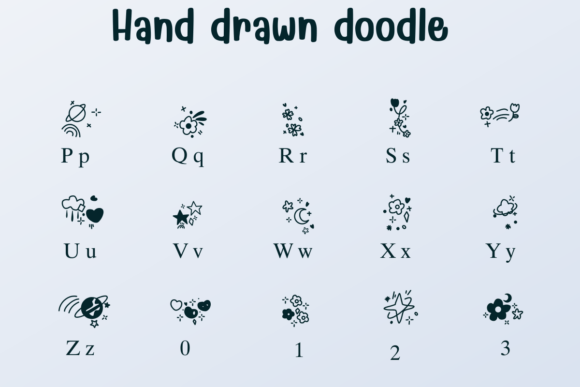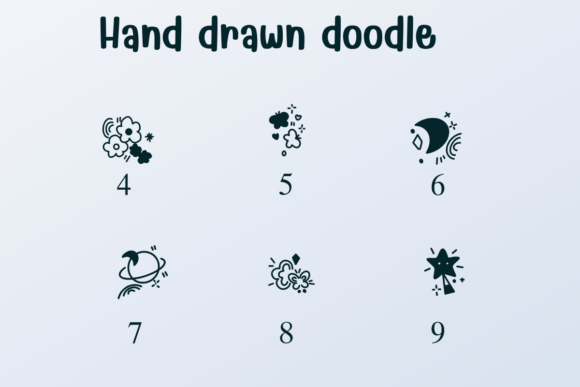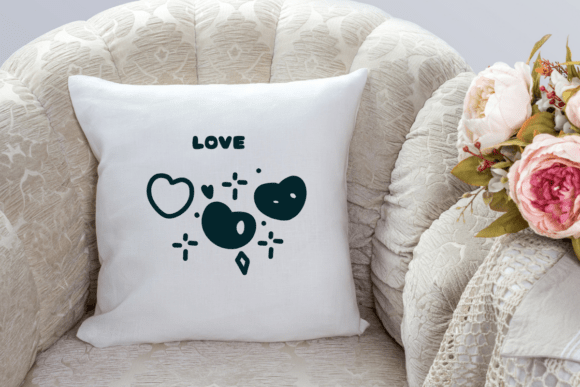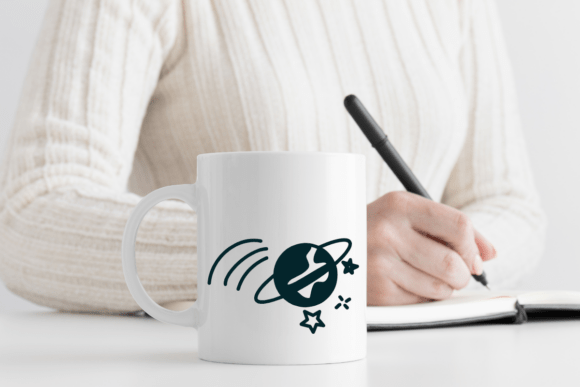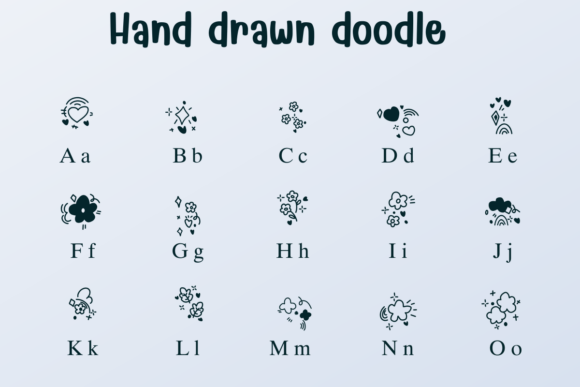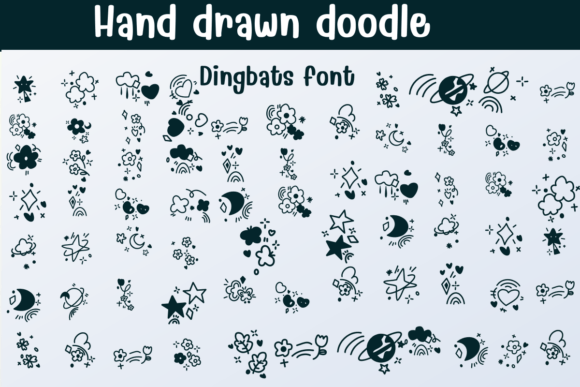
Introducing Hand Drawn Doodle Font: Add a Touch of Whimsy to Your Designs
Are you looking for a unique and playful font to add a personal touch to your designs? Look no further than the Hand Drawn Doodle Font, a charming dingbats font with a whimsical theme. This delightful font is perfect for use on websites, crafts, cards, and so much more, allowing you to unleash your creativity and bring a smile to your audience’s faces.
What is Hand Drawn Doodle Font?
Hand Drawn Doodle Font is a dingbats font, which means it’s a collection of symbols, icons, and illustrations that can be used to add visual interest to your designs. This font features a wide range of hand-drawn doodles, including shapes, patterns, and objects, all created with a playful and carefree spirit. The result is a font that’s perfect for adding a touch of whimsy and personality to your designs.
Characteristics of Hand Drawn Doodle Font
So, what makes Hand Drawn Doodle Font so special? Here are just a few of its key characteristics:
- Whimsical theme: This font features a playful and imaginative theme, perfect for designers who want to add a touch of fun and personality to their work.
- Hand-drawn illustrations: Each doodle in this font has been carefully hand-drawn, giving it a unique and organic feel.
- Wide range of symbols: Hand Drawn Doodle Font includes a vast collection of symbols, icons, and illustrations, giving you plenty of options to choose from.
- Perfect for crafts and cards: This font is ideal for use on handmade crafts, cards, and other paper-based projects, adding a personal touch to your creations.
Uses for Hand Drawn Doodle Font
So, how can you use Hand Drawn Doodle Font in your designs? Here are just a few ideas to get you started:
- Websites: Add a touch of whimsy to your website with this font, using it to create fun and engaging headers, titles, and icons.
- Crafts: Use Hand Drawn Doodle Font to add a personal touch to your handmade crafts, such as scrapbook pages, journal entries, and gift tags.
- Cards: Create one-of-a-kind greeting cards, invitations, and announcements with this font, adding a playful and imaginative touch.
- Social media: Use this font to create engaging social media graphics, such as blog post headers, Facebook posts, and Instagram stories.
Tips for Using Hand Drawn Doodle Font
To get the most out of Hand Drawn Doodle Font, here are a few tips to keep in mind:
- Experiment with different colors: This font looks great in a variety of colors, so don’t be afraid to experiment and find the perfect hue for your design.
- Mix and match doodles: Combine different doodles to create unique and interesting compositions.
- Use it sparingly: While Hand Drawn Doodle Font is playful and fun, it can be overwhelming if overused. Use it sparingly to add a touch of whimsy to your designs.
Hand Drawn Doodle Font is a unique and playful dingbats font that’s perfect for designers and crafters who want to add a touch of whimsy to their work. With its hand-drawn illustrations, wide range of symbols, and whimsical theme, this font is sure to inspire your creativity and bring a smile to your audience’s faces. So why not give it a try and see the difference it can make in your designs?